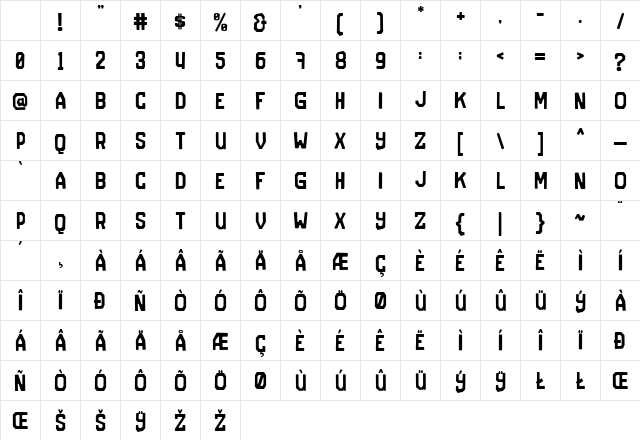
The Jersey brings high-energy athletic personality to the page - its confident, muscular forms are built for impact.
Pro Tip: Use The Jersey in all-caps headlines where its athletic energy can fully express itself. Pair with a solid, simple sans for supporting text.